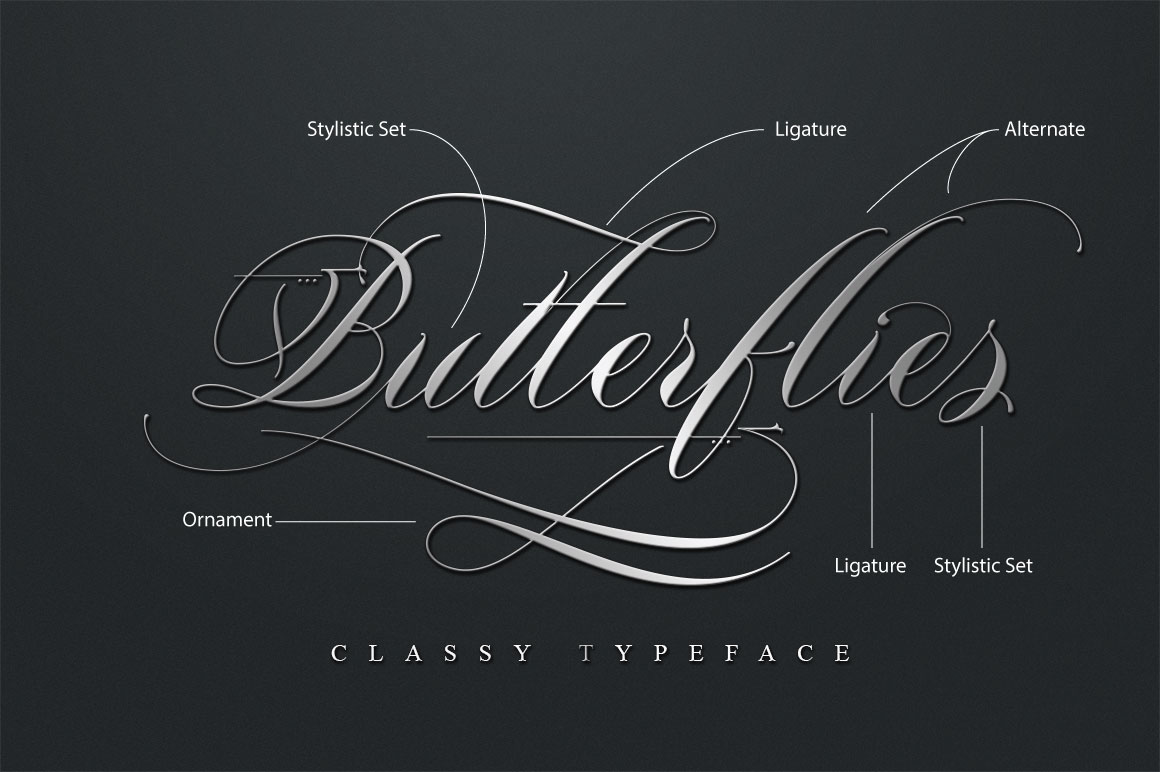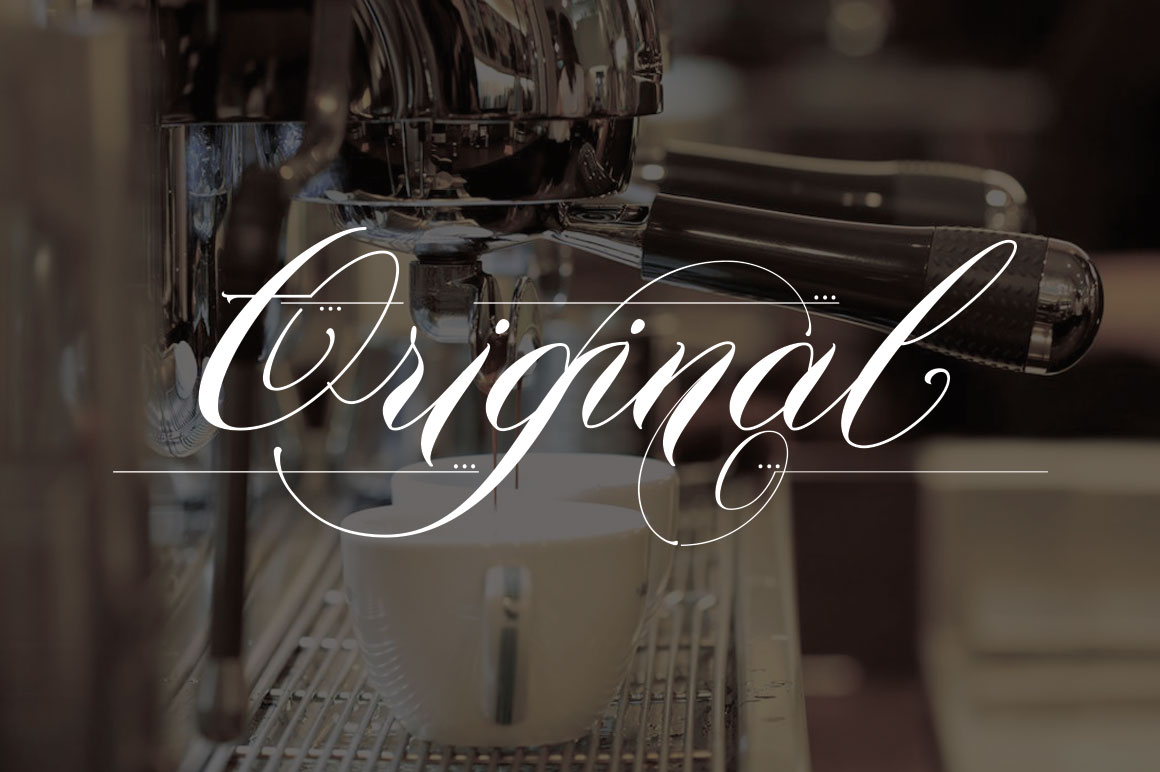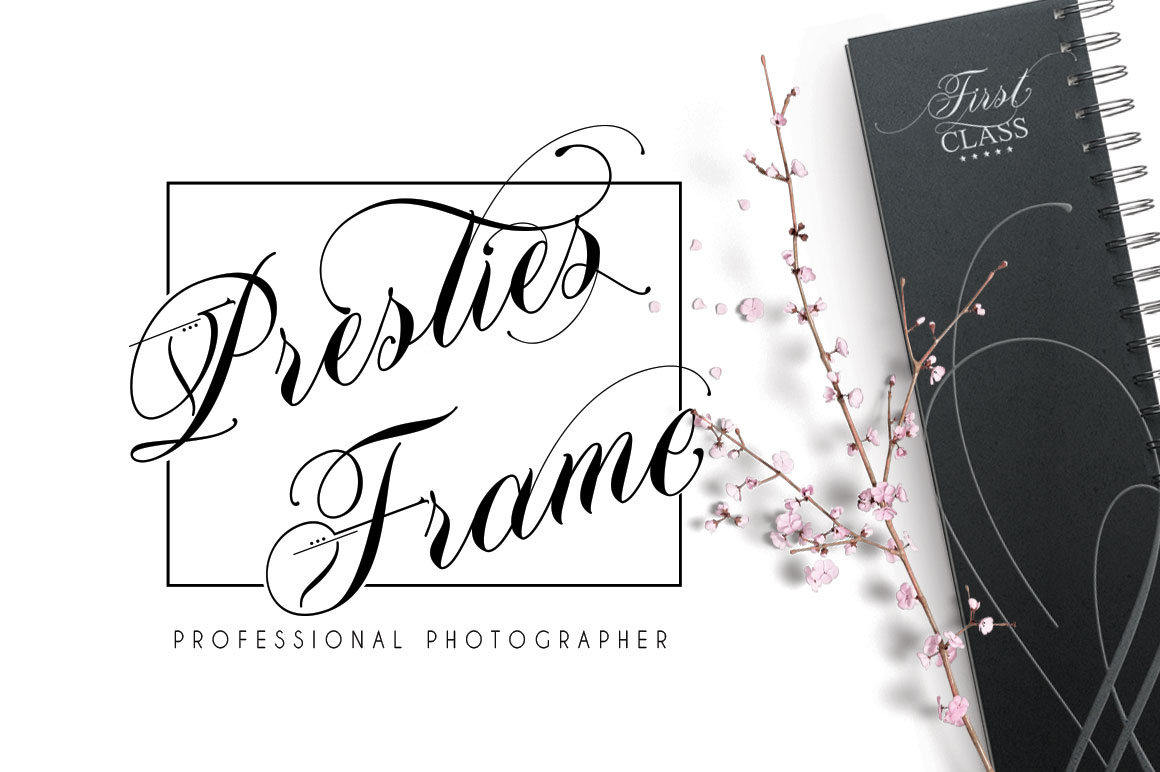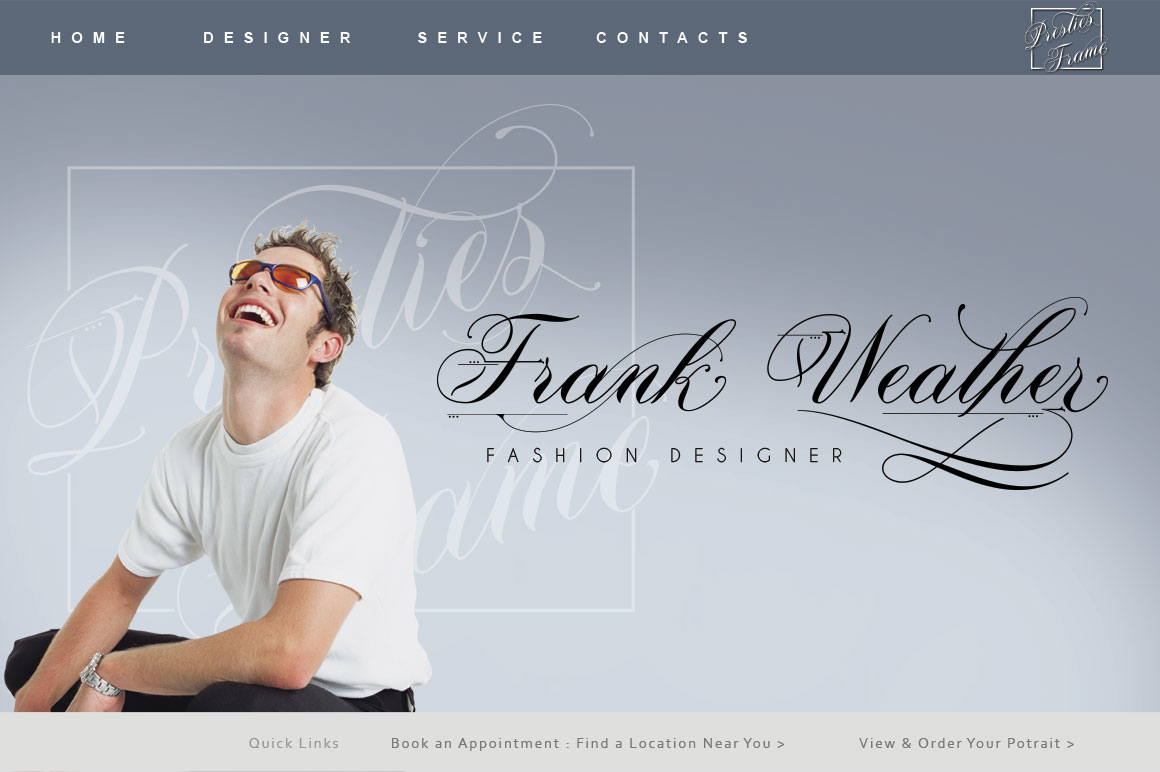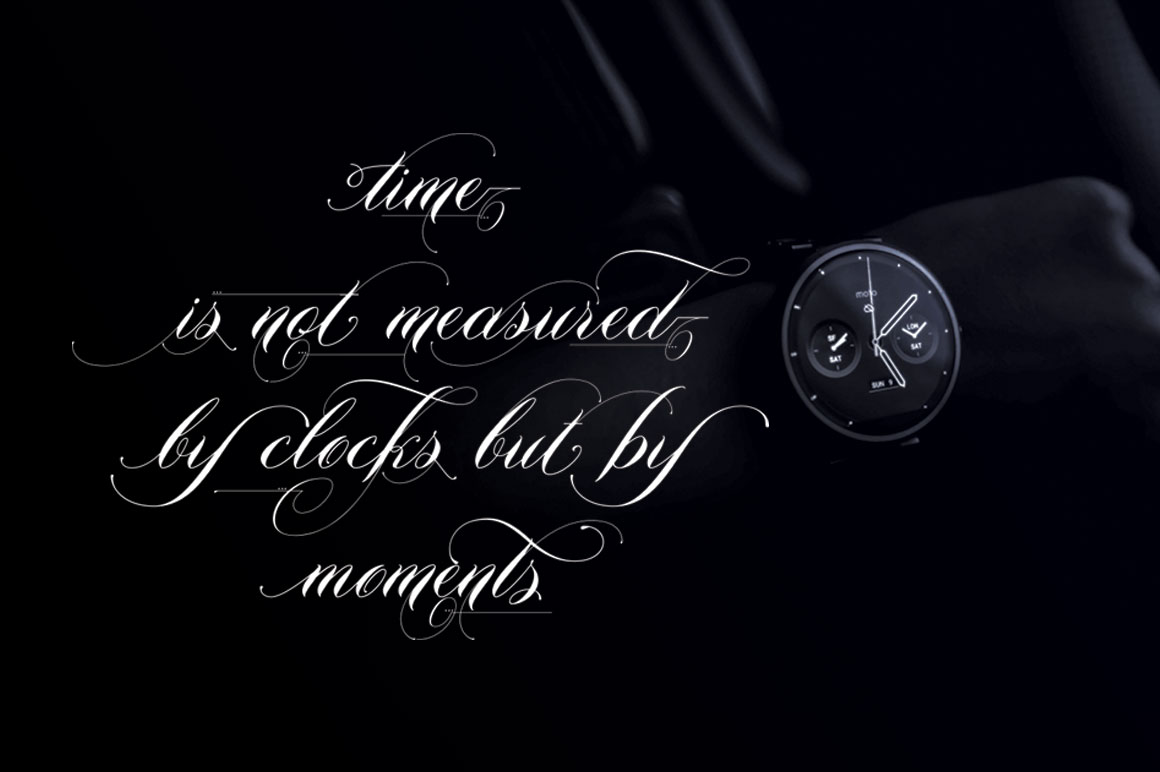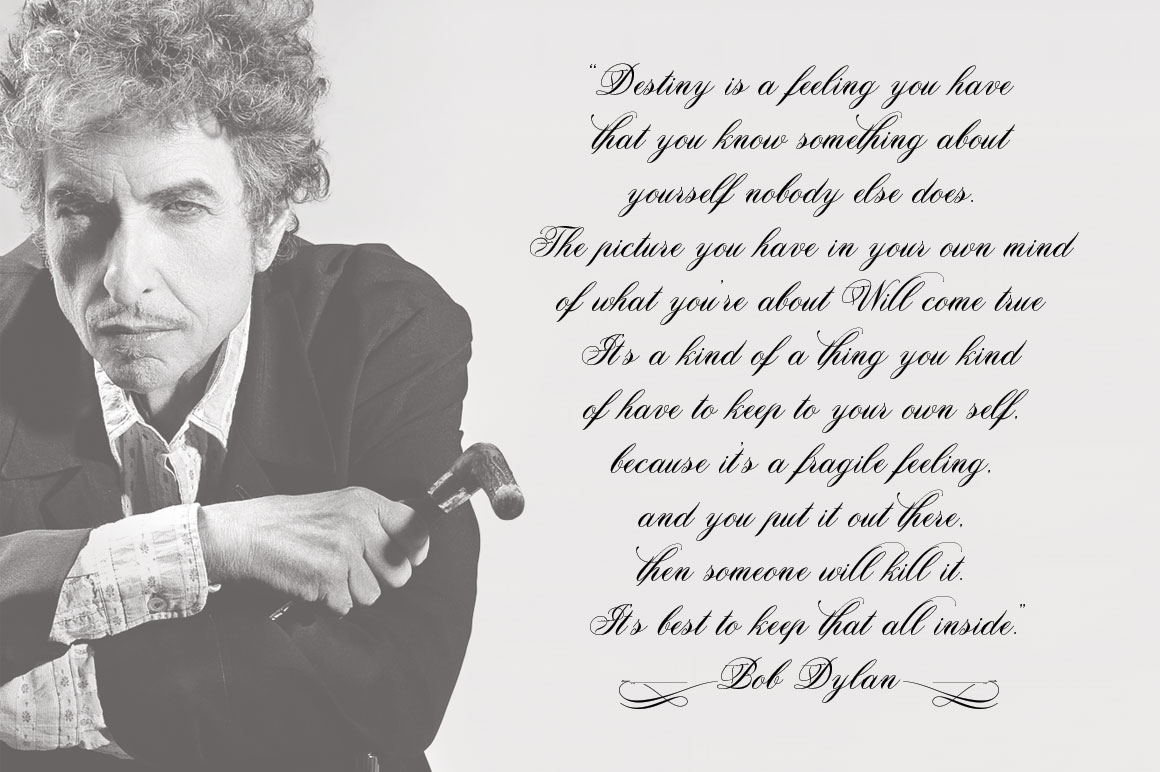
The Elegant Charm of Butterflies Font: A Designer’s Delight
I’ll never forget the time I was working on a wedding invitation project, and my client specifically asked for a font that exuded elegance and sophistication. I scoured the internet, tried out countless fonts, but nothing seemed quite right. That was until I stumbled upon Butterflies Font. It was love at first sight! 💕
With its classical, elegant calligraphy style, Butterflies Font is a beautiful addition to any design project. In this article, I’ll share my experience with this lovely font, its features, and how to make the most of it in your designs.
A Personal Review of Butterflies Font
• ✨ Careful Kerning: The font features meticulous kerning, giving your text a natural flow that’s perfect for body text or headings.
• ✅ Ancient American Handwriting Inspiration: The font’s roots in old American handwriting give it a unique, timeless charm.
• 💫 Elegant and Versatile: Butterflies Font is suitable for a wide range of projects, from corporate designs to personal crafts.
While Butterflies Font is an excellent choice, there are a few things to keep in mind:
• ⚠️ Limited Use in Small Sizes: As with many script fonts, Butterflies may not be the best choice for very small text sizes, as some details may get lost.
• 🤔 Occasional Ink Bleeds: Some letters may exhibit slight ink bleeds, which can add character but might not be suitable for all design styles.
The Backstory of Butterflies Font
Butterflies Font was created with inspiration from ancient American handwriting. The designer aimed to capture the elegance and charm of old handwriting styles, perfect for those looking for a touch of classic sophistication in their designs.
Q: Is Butterflies Font suitable for body text?
A: While it’s primarily designed for headings and titles, Butterflies Font can be used for body text in larger projects, but keep in mind readability, especially in smaller sizes.
Q: Does Butterflies Font support OpenType features?
A: Yes, Butterflies Font supports various OpenType features, including ligatures and stylistic alternates, allowing for more customization in your designs.